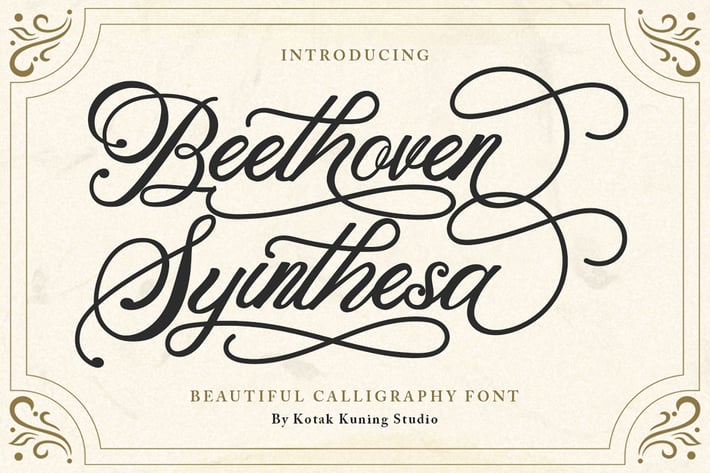
Beethoven Syintesa - Calligraphy Font
Beethoven Syintesa is a beautiful classical calligraphy font. Perfect for making elegant stylish statements - or adding a touch of class to your designs. This script has a multitude of natural-looking ligatures and alternate characters in its OpenType features - making the font look as close to natural handwriting as possible.
Beethoven Syinthesa is perfect for many different projects such as logos & branding, invitation, stationery, wedding designs, social media posts, advertisements, product packaging, product designs, label, photography, watermark, special events, or anything.